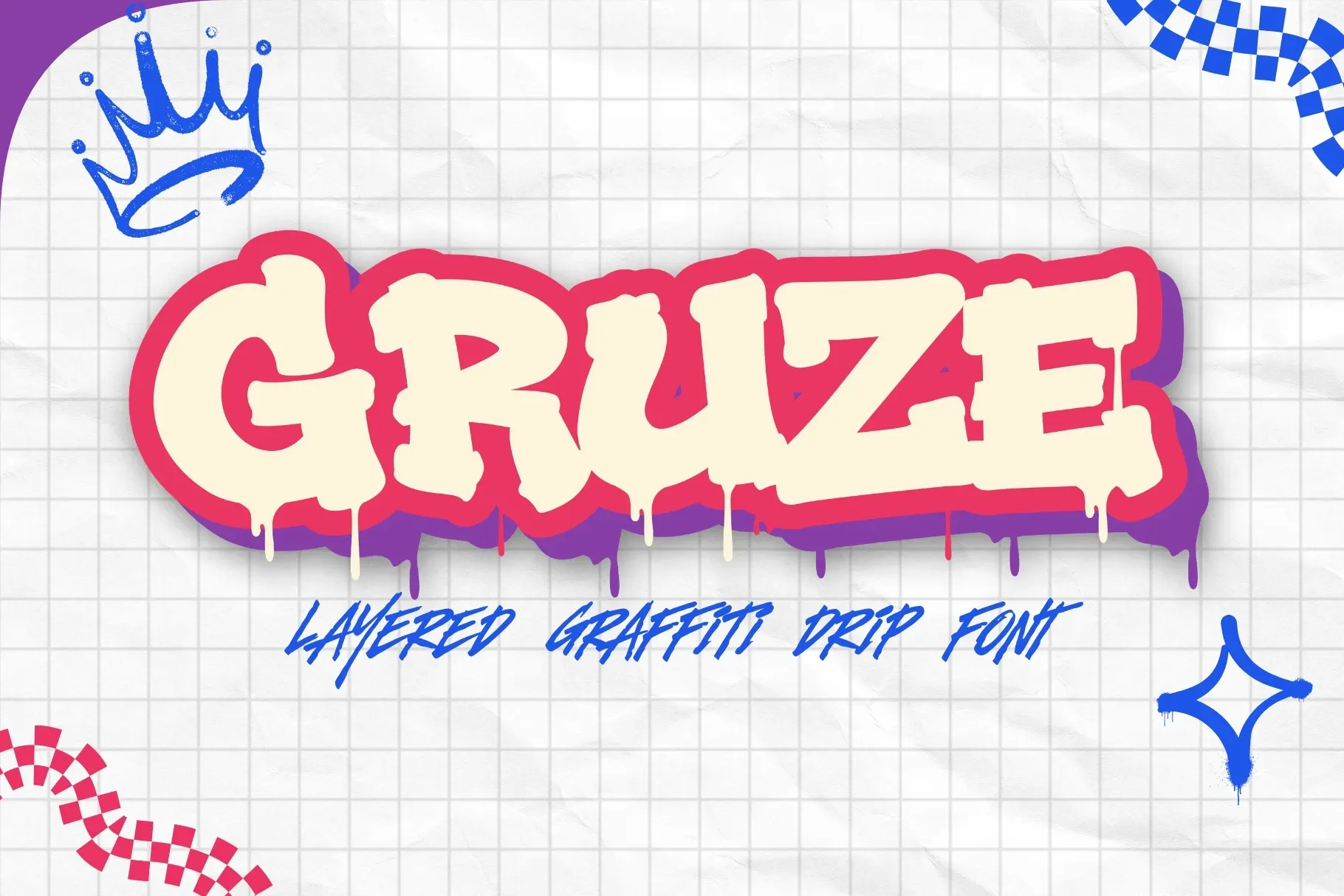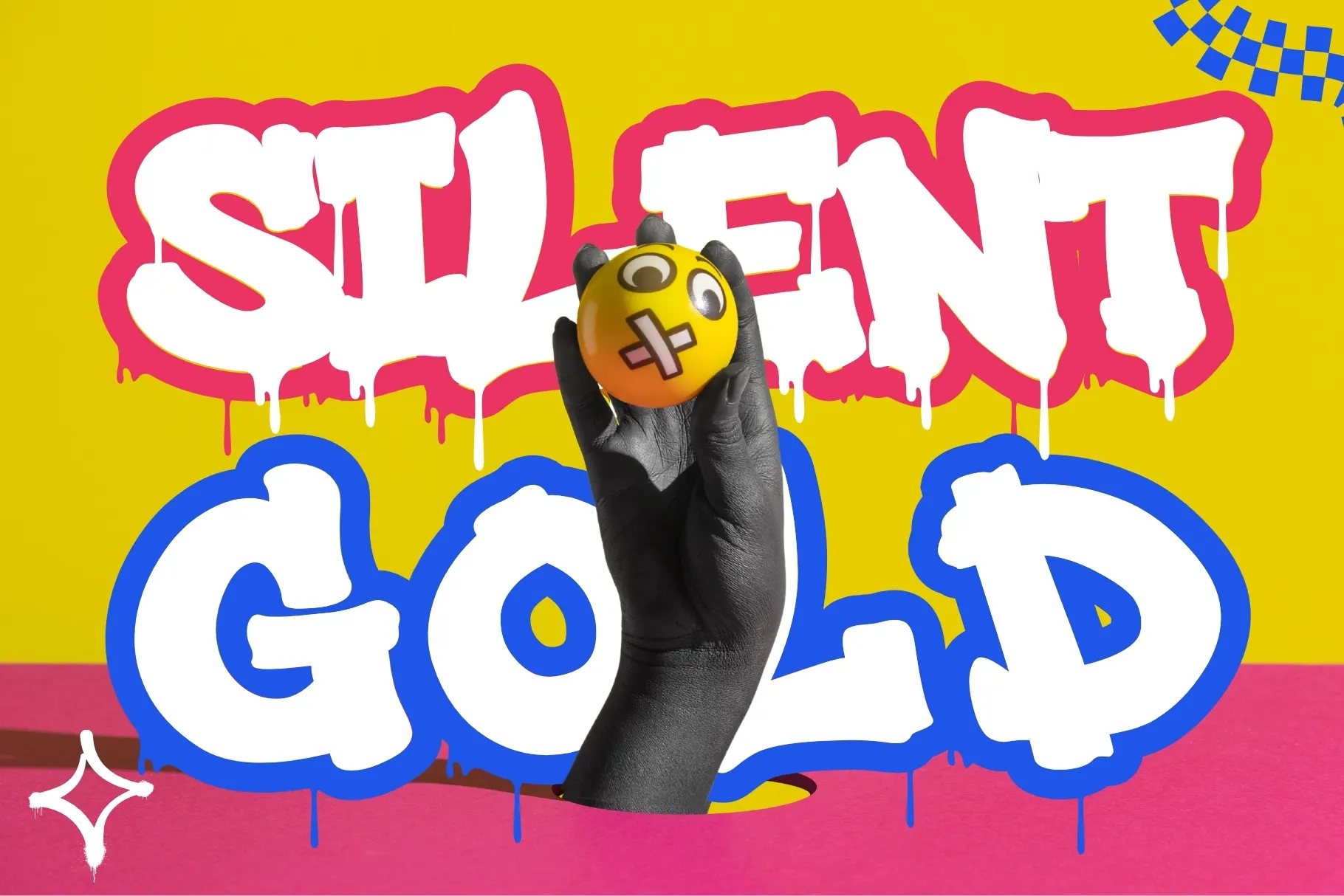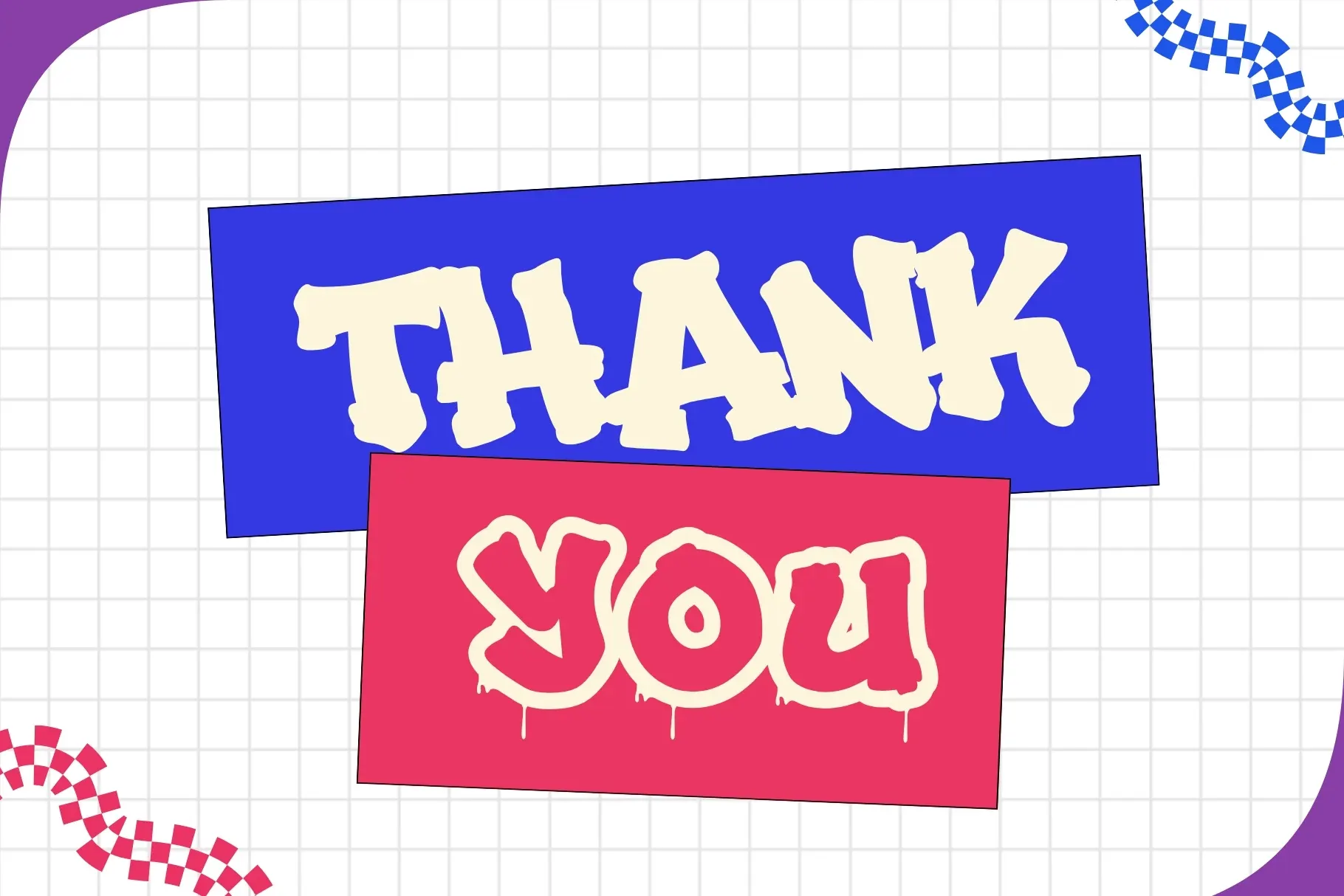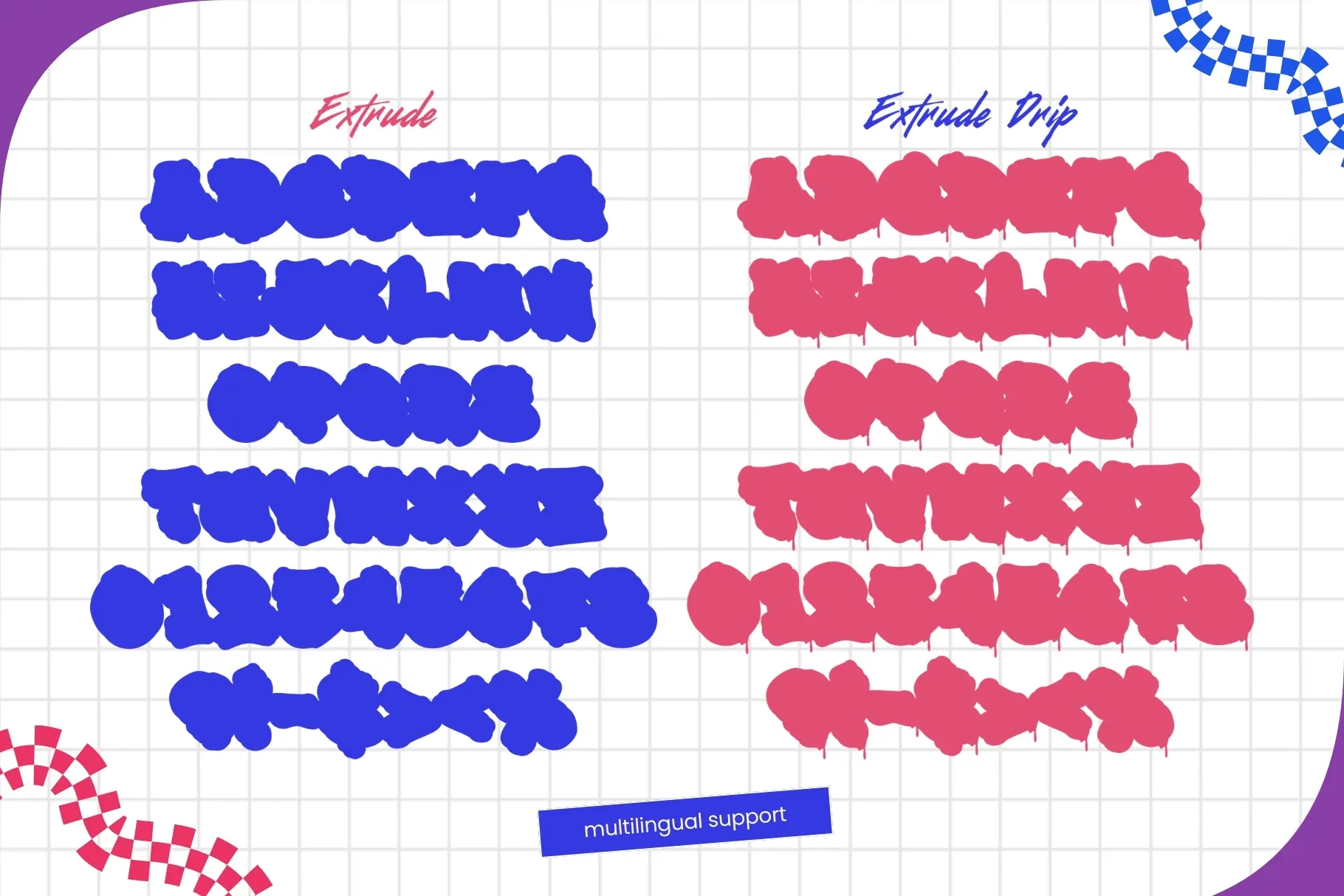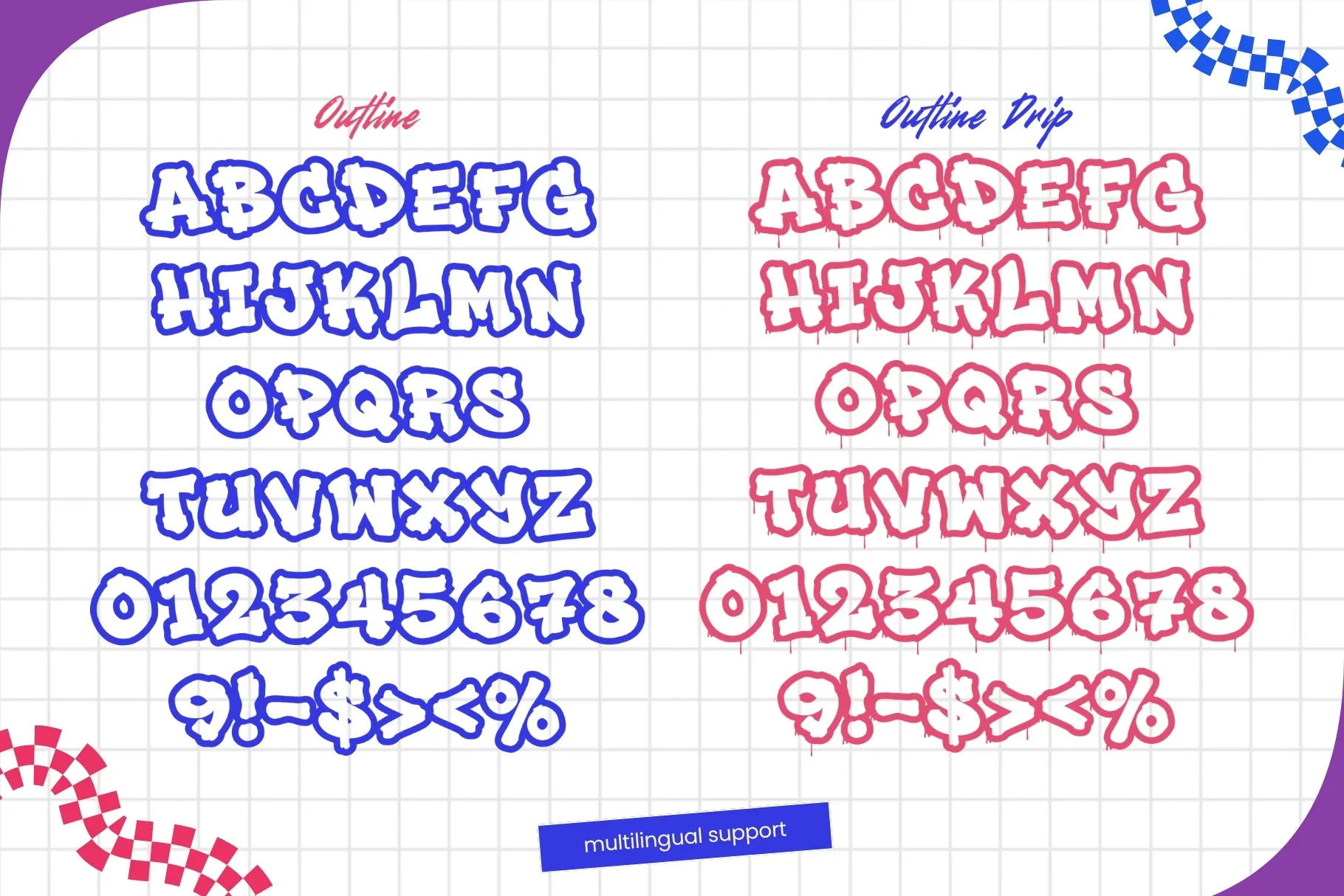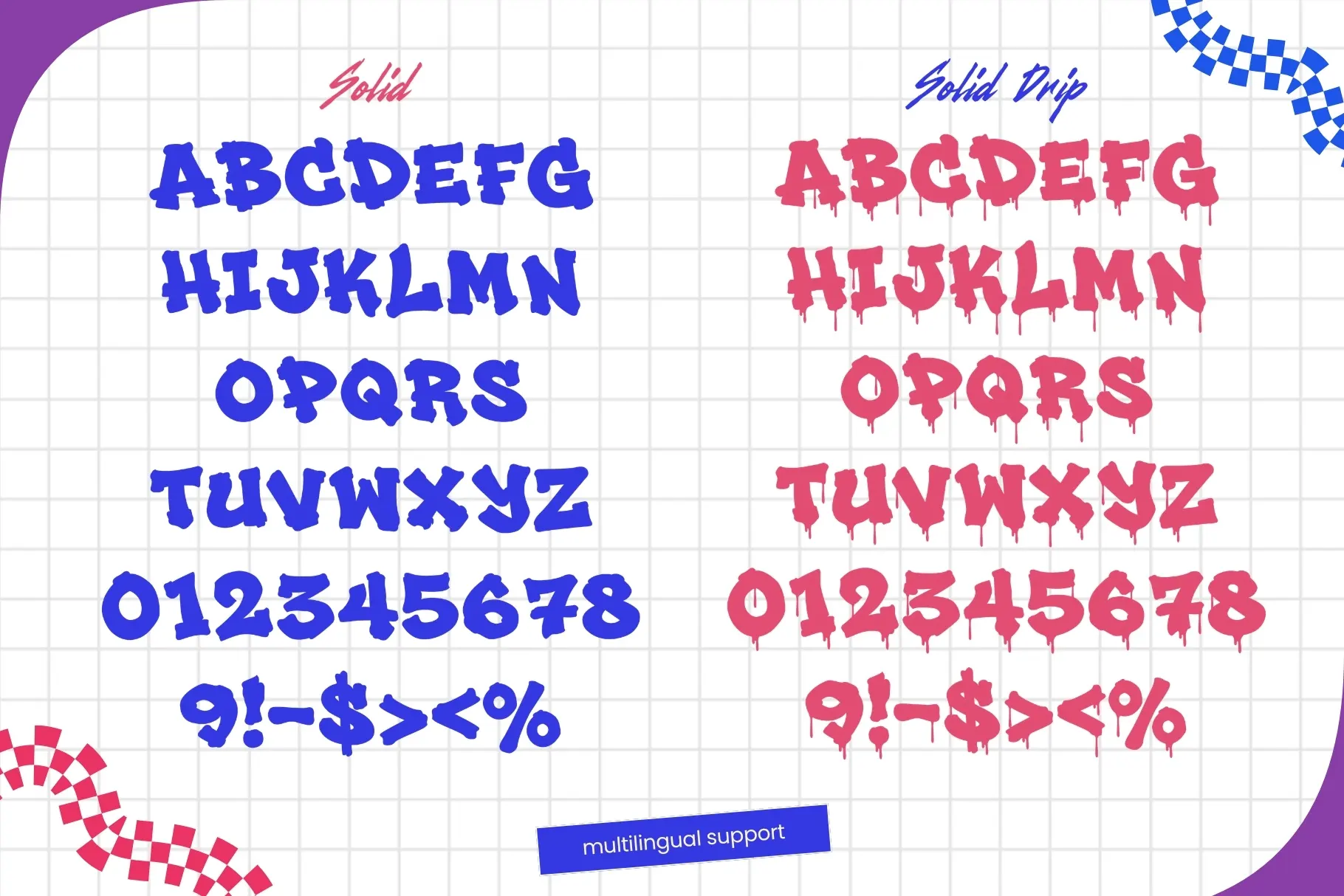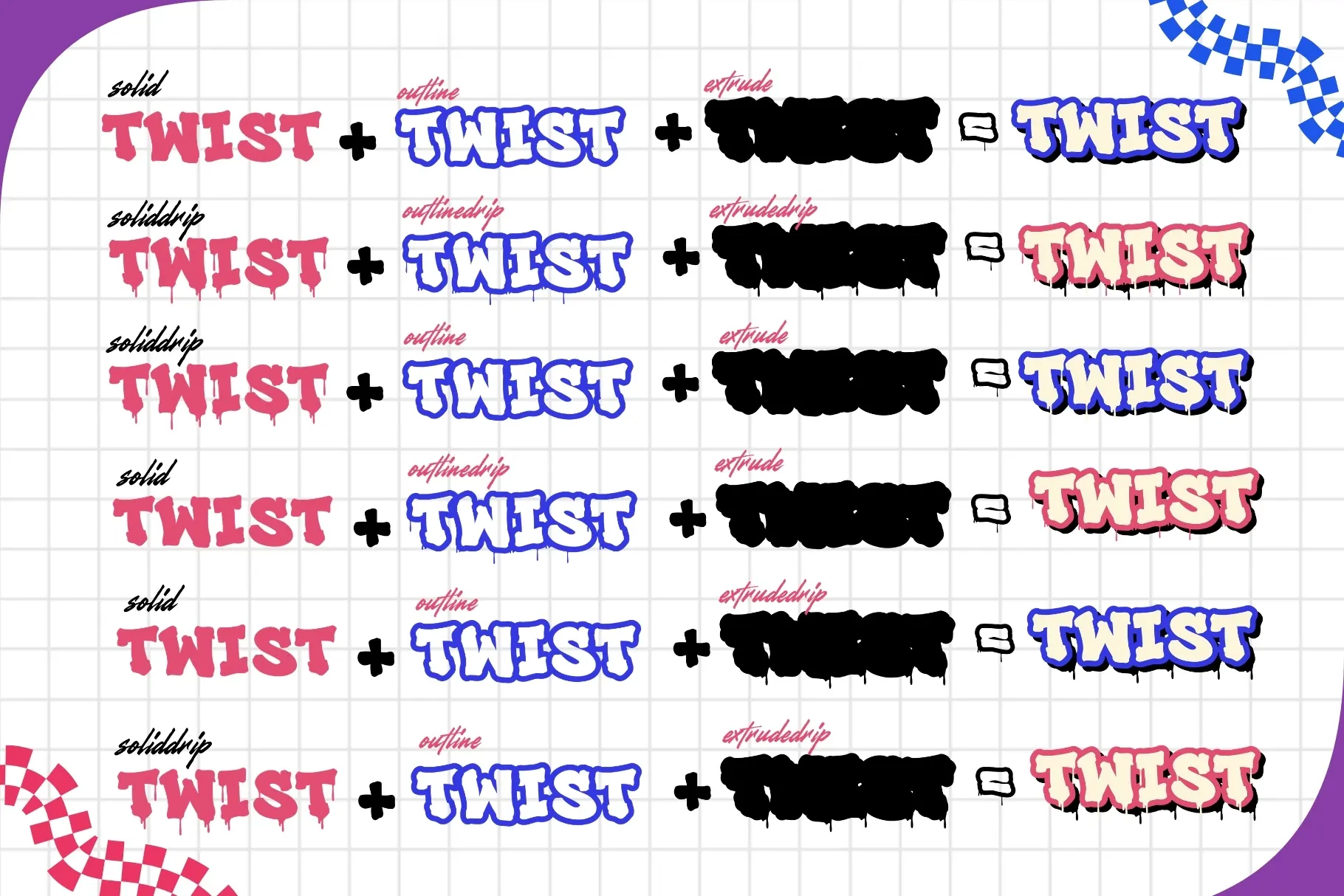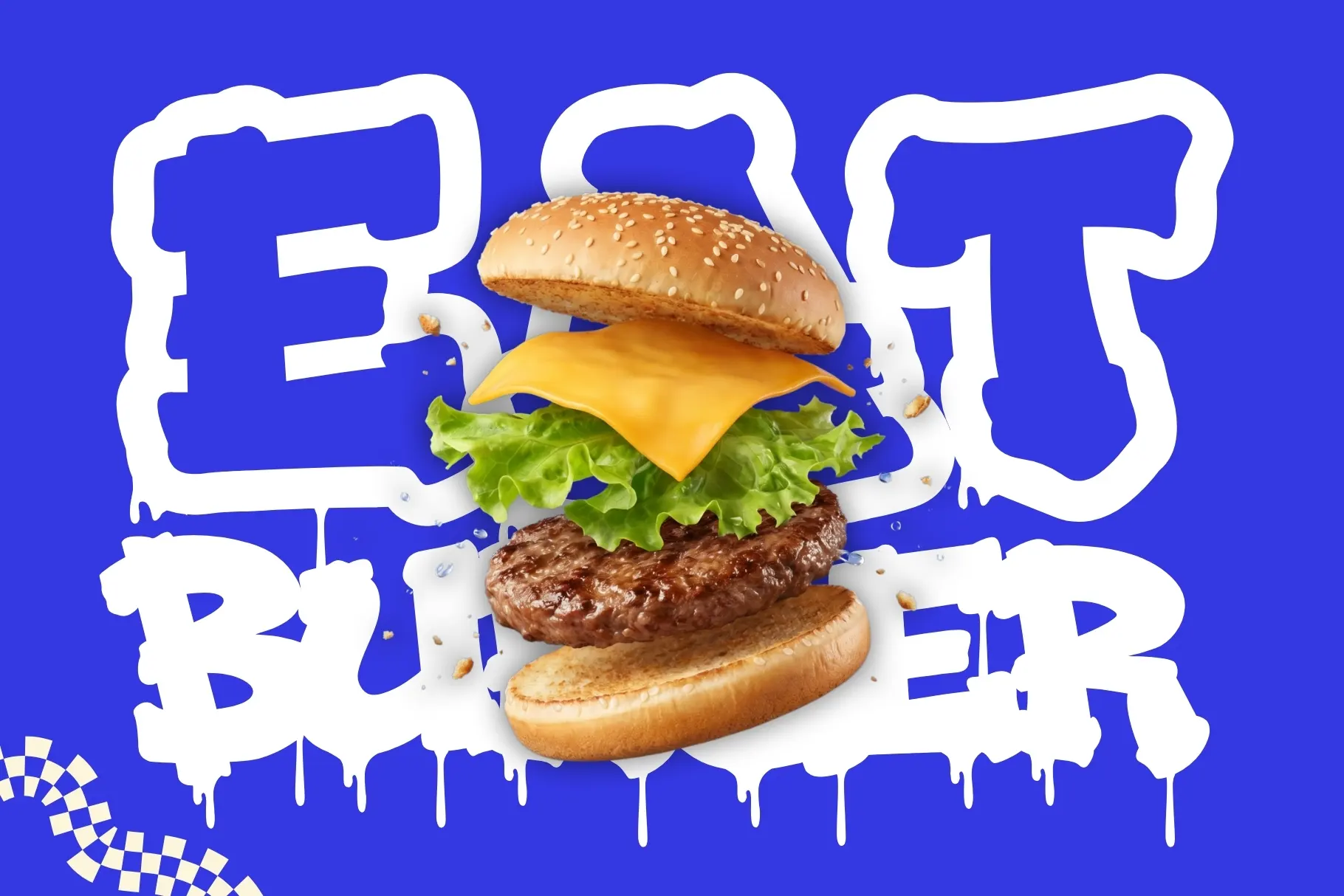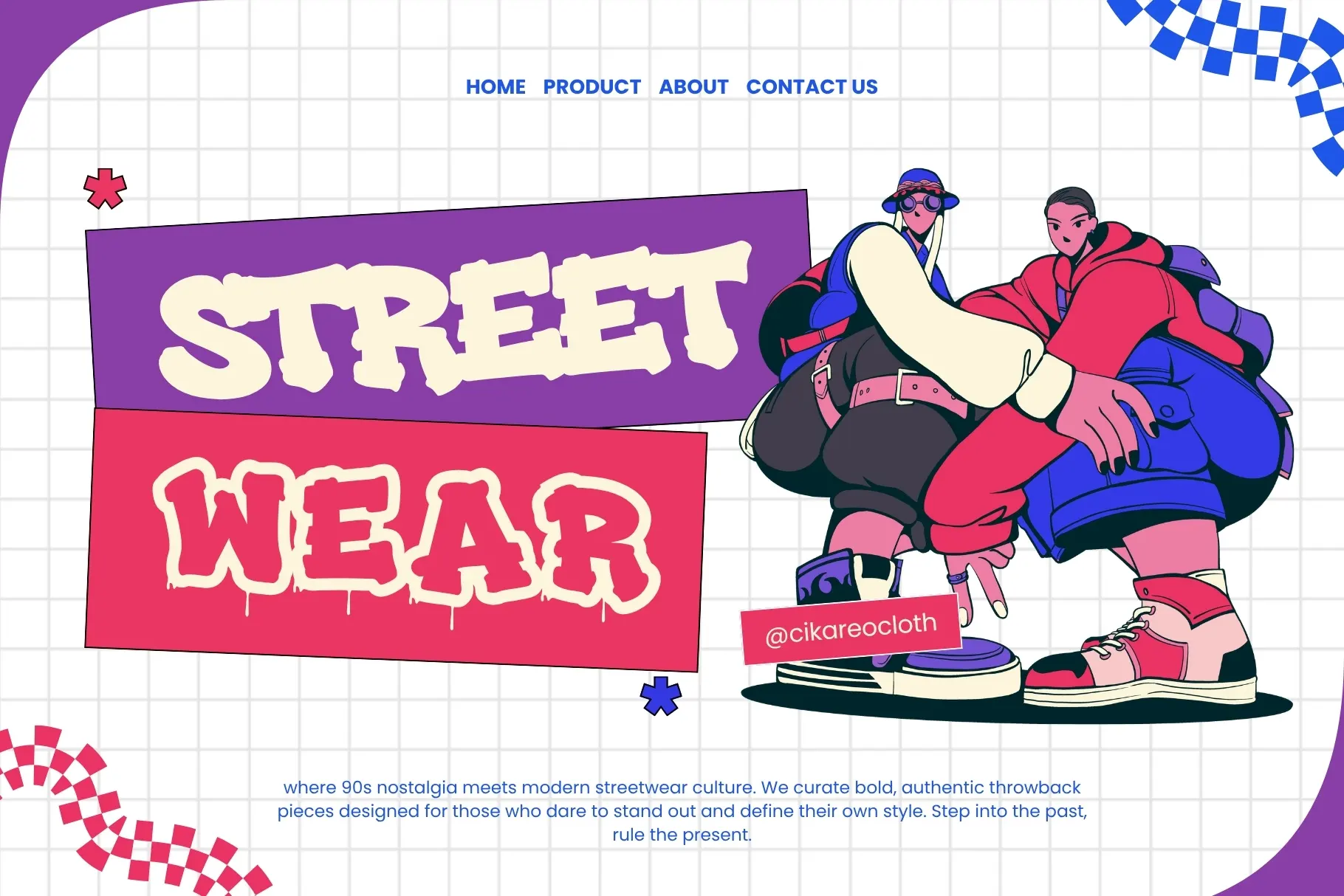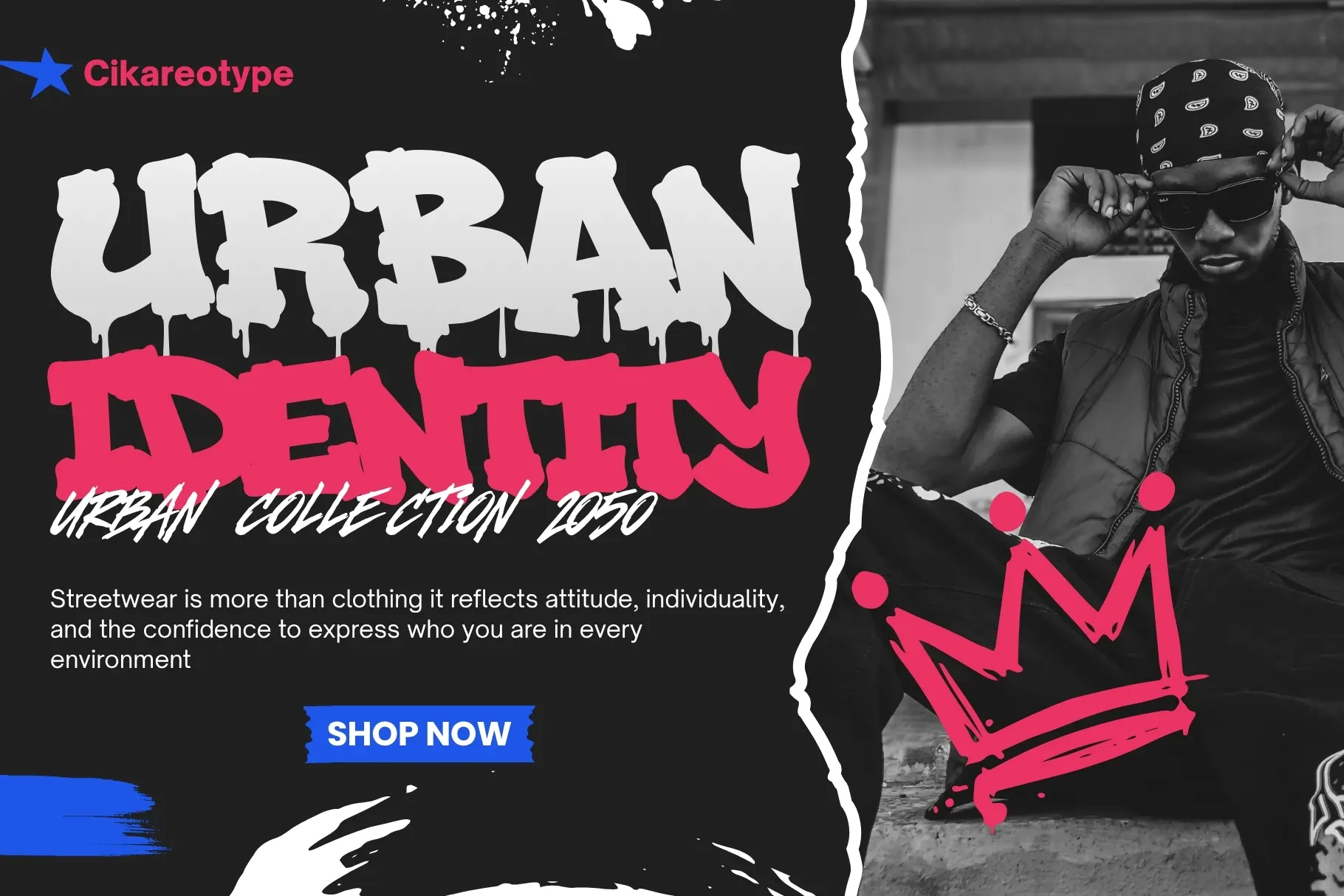
About Gruze
Gruze is a powerful layered graffiti font designed for creators who want bold urban typography with a melted, dripping, and dimensional appearance. Combining solid lettering, outlines, extruded depth, and expressive drip variations, this graffiti font gives designers multiple ways to build eye-catching street-inspired typography. Gruze is made for projects that need strong visual impact, including streetwear graphics, logos, posters, album artwork, packaging, merchandise, social media designs, and modern urban branding.
The distinctive character of Gruze graffiti font comes from its layered design system and melted lettering aesthetic. Instead of offering only one static style, Gruze provides six coordinated styles that can be mixed and matched to create different visual effects. This melted graffiti font is especially useful for designers who want typography with a fluid street-art personality, strong silhouettes, and a contemporary urban attitude.
With its combination of solid, outline, extrude, and dripping variations, Gruze works as a versatile urban graffiti font for both simple and highly detailed compositions. Designers can create clean solid headlines, experimental dripping lettering, outlined typography, or dimensional display treatments depending on the visual direction of the project.
A Complete Layered Graffiti Font System
Gruze graffiti font was developed as a complete layered typography system rather than a single decorative typeface. The collection includes six styles that give designers extensive creative control over how their lettering looks. Each style can contribute a different visual layer, allowing you to construct typography that feels deeper, bolder, and more dynamic.
This layered graffiti font is ideal for designers who enjoy experimenting with typography. The Solid style can establish the primary letterform, while the Outline and Extrude styles can introduce additional visual structure. The corresponding drip variations add a melted street-art effect that immediately increases the expressive quality of the design.
The result is a flexible graffiti display font that can adapt to everything from minimal urban logos to complex poster compositions. Instead of searching for several different typefaces, designers can use the Gruze family as a cohesive system.
Six Styles for Creative Freedom
One of the strongest features of Gruze graffiti font is the six-style collection. Each version has been created to work within the same visual language, making it easier to develop consistent typography across a complete project.
The included styles are:
- Gruze Solid
- Gruze Soliddrip
- Gruze Outline
- Gruze Outlinedrip
- Gruze Extrude
- Gruze Extrudedrip
This collection makes Gruze layered graffiti font highly adaptable for professional graphic design. You can use a single style for a clean result or combine several styles to create more complex compositions with depth, outlines, and dripping details.
Gruze Solid
Gruze Solid provides the foundation of the entire graffiti font family. Its bold filled letterforms create a strong visual presence and are ideal for headlines, logos, apparel graphics, and large display typography.
The solid version of this urban graffiti font works particularly well when you need maximum readability combined with a strong street-inspired personality. It can be used independently or as the foundation for additional layers.
Gruze Soliddrip
Gruze Soliddrip adds an expressive dripping effect to the solid letterforms, creating the signature melted appearance of this dripping graffiti font. The additional drips give typography a more fluid and rebellious visual personality.
This melted graffiti font style is ideal for streetwear graphics, underground posters, music artwork, stickers, skate-inspired branding, and other projects where raw urban energy is essential.
Gruze Outline
Gruze Outline transforms the bold structure into an outlined display treatment. This outline graffiti font style provides designers with a lighter visual alternative while maintaining the distinctive shape and attitude of the Gruze lettering.
Outline typography can also be used as a secondary layer behind solid characters, making it useful for creating dimensional logos, decorative headlines, and experimental urban compositions.
Gruze Outlinedrip
Gruze Outlinedrip combines the structural quality of outlined lettering with expressive dripping details. This dripping graffiti font variation is perfect for designers who want a more unusual and artistic interpretation of urban typography.
The combination of outline and drip effects makes this graffiti display font especially effective for posters, music graphics, apparel designs, stickers, and digital artwork where typography needs to become the main visual attraction.
Gruze Extrude
Gruze Extrude introduces dimensional depth to the lettering, making it an excellent choice for designers looking for a bold 3D graffiti font effect. The extruded appearance can give headlines and logos a stronger sense of depth and visual weight.